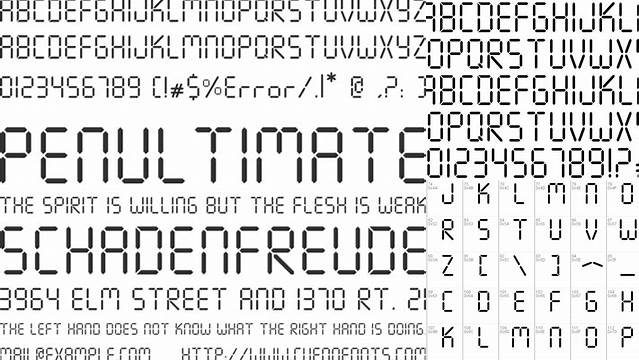
Download Free 7 Segment Fonts: A Comprehensive Guide
Hey guys! Are you on the hunt for that perfect 7 segment font to give your project a unique, digital display vibe? You've landed in the right spot! In this comprehensive guide, we're going to dive deep into the world of 7 segment fonts, where to find them for free, how to use them, and even some tips on picking the best one for your needs. So, let’s get started and explore this fascinating font style!
What is a 7 Segment Font?
First things first, let's break down what exactly a 7 segment font is. Imagine those classic digital displays you see on calculators, digital clocks, and old-school electronic devices. They're made up of seven individual segments that light up in different combinations to form numbers and some letters. That’s the essence of a 7 segment font!
The beauty of this font lies in its simplicity and legibility. Each digit is constructed from a maximum of seven lines, making it incredibly efficient for displaying information on devices with limited display capabilities. This retro aesthetic has made a huge comeback in recent years, and designers are using 7 segment fonts to evoke a sense of nostalgia, technology, and precision. Think of it as the pixel art of typography! Its simplicity makes it ideal for projects where clarity and a tech-inspired look are key. This font is not just a typeface; it's a design element that brings a touch of retro-futurism to any project. Whether you’re working on a sleek user interface or a retro-themed poster, a 7 segment font can add that perfect touch of digital nostalgia.
Why Use a 7 Segment Font?
So, why should you consider using a 7 segment font in your design projects? There are several compelling reasons!
1. Retro Aesthetic
As we touched on earlier, 7 segment fonts have a distinct retro vibe. They instantly transport viewers back to the era of early digital technology, making them perfect for projects that aim to evoke nostalgia or a vintage feel. Using a 7 segment font can be a fantastic way to add a touch of retro-futurism to your work. It's like giving a nod to the past while still maintaining a modern edge. Imagine using it for a poster promoting a retro gaming event, or in the user interface of an app that wants to capture that classic tech feel.
2. Clarity and Legibility
Despite their minimalist design, 7 segment fonts are incredibly clear and easy to read. This makes them ideal for applications where information needs to be conveyed quickly and efficiently. Whether it's displaying the time on a digital clock or showing scores on a scoreboard, the clear, geometric shapes of 7 segment fonts ensure that the information is instantly accessible. This legibility is crucial in environments where information overload can be a problem. Think about the clarity of a 7 segment font on a control panel or in a data-heavy interface; it cuts through the noise and delivers the message directly.
3. Tech and Industrial Look
These fonts have a natural association with technology and industrial applications. They're commonly used in displays for machinery, electronic devices, and control panels. Incorporating a 7 segment font into your design can instantly give it a tech-savvy and professional appearance. This is particularly useful in industries like engineering, manufacturing, and technology. A 7 segment font in a company logo, for example, can communicate a sense of precision and innovation. Similarly, using it in a product manual or technical document can reinforce the technological nature of the content.
4. Unique Design Element
In a world saturated with traditional fonts, using a 7 segment font can make your project stand out. It’s a unique design element that can add character and visual interest to your work. It’s an opportunity to break away from the norm and create something truly memorable. When used creatively, a 7 segment font can become a signature element of your brand or project. Think about how a unique font choice can elevate a design, making it more noticeable and engaging. This uniqueness can be especially effective in marketing materials, where standing out from the competition is key.
Where to Find 7 Segment Fonts for Free
Okay, so you’re convinced that a 7 segment font is the way to go. Now, where can you find these gems without breaking the bank? Luckily, the internet is brimming with resources for free fonts. Here are some of the best places to look:
1. Font Squirrel
Font Squirrel is a fantastic resource for high-quality, free fonts that are licensed for commercial use. They have a great selection of 7 segment fonts, and their easy-to-navigate website makes finding the perfect font a breeze. Font Squirrel is a go-to for designers who need reliable, free options. The site is well-organized, allowing you to filter fonts by category, style, and more. Plus, you can be confident that the fonts you download are safe to use in both personal and commercial projects. Their collection is constantly updated, so it’s worth checking back regularly to see what’s new. The clear licensing information provided by Font Squirrel is also a huge benefit, ensuring you’re using fonts in accordance with their terms.
2. DaFont
DaFont is another popular website with a massive collection of free fonts, including numerous 7 segment options. While many fonts on DaFont are free for personal use, it’s important to check the licensing agreement before using them in commercial projects. DaFont’s vast library makes it a great place to discover unique and quirky fonts. The user interface is straightforward, making it easy to browse and download fonts. However, always double-check the license information provided by the font creator, as terms can vary. DaFont is a treasure trove for creative fonts, and with a little diligence, you can find some real gems for your projects. The ability to preview fonts by entering custom text is also a helpful feature, allowing you to see how the font will look in your designs.
3. Google Fonts
Google Fonts is a powerhouse of free, open-source fonts. While their selection of 7 segment fonts might not be as extensive as some other sites, the fonts they do offer are top-notch and ready for use in any project, commercial or personal. Google Fonts is known for its high-quality typography and seamless integration with web projects. The fonts are optimized for web use, ensuring they load quickly and display correctly across different browsers and devices. This is a huge advantage for web designers. The ease of embedding Google Fonts into websites and apps makes it a popular choice. Plus, the open-source nature of the fonts means you have the freedom to use and modify them as needed.
4. 1001 Fonts
1001 Fonts boasts a wide array of fonts, including a solid selection of 7 segment styles. Like DaFont, it’s crucial to verify the licensing terms for each font before using it commercially. 1001 Fonts offers a diverse collection that caters to a wide range of design needs. The site is user-friendly, with clear categories and search options. The variety of 7 segment fonts available here makes it a worthwhile stop in your search. Just remember to pay attention to the licensing details to ensure you’re using the fonts appropriately. The ability to filter fonts by different criteria, such as style and weight, can help you narrow down your options and find the perfect fit for your project.
5. Creative Market (Free Goods)
Creative Market isn’t exclusively a free font resource, but they offer a selection of free goods every week, which sometimes includes 7 segment fonts. It’s worth checking their free offerings regularly to snag some premium fonts without spending a dime. Creative Market is known for its high-quality design assets, and their free goods section is a fantastic way to access premium resources. The selection changes frequently, so it’s always a good idea to check back often. You might discover some hidden gems and add some valuable fonts to your collection. This is a great way to expand your font library with professional-grade resources at no cost. Plus, it gives you a taste of the quality and variety available on Creative Market, which can be helpful if you’re ever in the market for paid design assets.
How to Choose the Right 7 Segment Font
With so many options out there, how do you choose the right 7 segment font for your project? Here are some factors to consider:
1. Legibility
The primary purpose of a 7 segment font is to display information clearly. Ensure the font you choose is easily readable, especially at the size you plan to use it. The clarity of the font should be your top priority. Look for fonts with well-defined segments and adequate spacing between digits. This is particularly important in applications where quick and accurate information reading is essential. For instance, if you're designing a digital clock display, the font must be legible at a glance. Test the font in various sizes and contexts to make sure it remains clear and readable. A font that looks good in a large headline might not be as effective in a smaller, more detailed display.
2. Style and Aesthetic
Consider the overall style and aesthetic of your project. Do you want a font that looks strictly technical, or something with a bit more flair? There are 7 segment fonts that range from minimalist and utilitarian to more stylized and decorative. The font should complement the overall design and convey the intended message. Think about the mood you want to create. A sleek, modern font might be perfect for a high-tech interface, while a more rounded, retro-style font could be ideal for a vintage-themed project. Consider the other design elements in your project and choose a font that harmonizes with them. The right font can enhance the visual impact of your design and reinforce the intended theme.
3. Completeness of Character Set
Most 7 segment fonts are designed primarily for numerals, but some include a limited set of letters and symbols. Ensure the font you choose includes all the characters you need for your project. If you need to display text as well as numbers, check the font’s character set carefully. Some fonts might only include basic letters, while others offer a more comprehensive set of characters. This is especially important if you're designing a display that needs to show both numerical and textual information. A complete character set ensures that you can convey your message accurately and effectively. It also prevents the need to mix and match fonts, which can disrupt the visual consistency of your design.
4. Licensing
As we’ve mentioned, licensing is crucial. Always check the licensing terms of a font before using it, especially in commercial projects. Make sure you have the rights to use the font for your intended purpose. Understanding the font’s license is essential to avoid legal issues. Some fonts are free for personal use only, while others are free for both personal and commercial use. If you’re unsure about the licensing terms, it’s always best to err on the side of caution and contact the font creator for clarification. Using a font without the appropriate license can lead to legal problems, so it’s worth taking the time to ensure you’re complying with the terms of use.
5. Versatility
Think about the versatility of the font. Can it be used in different sizes and contexts without losing its legibility or aesthetic appeal? A versatile font will serve you well across a range of projects. Consider how the font will perform in different applications. A font that looks great in a large headline might not be as effective in smaller text. Test the font in various sizes and contexts to ensure it remains clear and readable. A versatile font is a valuable asset in your design toolkit, as it can be used in multiple projects and applications. This can save you time and effort in the long run, as you won’t need to search for a new font for every project.
How to Install and Use 7 Segment Fonts
Once you’ve downloaded your 7 segment font, you’ll need to install it on your computer. The process is pretty straightforward, but here’s a quick guide:
Installing on Windows
- Unzip the font file if it’s in a ZIP archive.
- Right-click on the font file (.ttf or .otf) and select “Install.”
- Alternatively, you can copy the font file to the “Fonts” folder in your Windows directory (usually C:\Windows\Fonts).
Installing on macOS
- Unzip the font file if it’s in a ZIP archive.
- Double-click on the font file (.ttf or .otf), and Font Book will open.
- Click “Install Font” at the bottom of the window.
Using the Font
Once installed, the font should be available in any application that uses fonts, such as word processors, graphic design software, and web design tools. Simply select the font from the font menu in your application of choice, and you’re ready to go!
Tips for Using 7 Segment Fonts Effectively
To make the most of your 7 segment font, here are a few tips to keep in mind:
1. Use Sparingly
While 7 segment fonts are cool, they’re best used sparingly. Overusing them can dilute their impact and make your design look cluttered. Use them strategically to highlight key information or create a specific aesthetic. Think of them as a design accent rather than the primary font for your entire project. A little goes a long way in creating a memorable and effective design.
2. Pair with Complementary Fonts
When using a 7 segment font, pair it with a more traditional font for body text or other elements. This creates a nice contrast and prevents the design from becoming too overwhelming. A clean sans-serif font often works well as a complement. This pairing helps to balance the unique, digital look of the 7 segment font with the readability of a more conventional typeface. The contrast can draw attention to the 7 segment font while ensuring the rest of your text remains clear and easy to read.
3. Consider the Color Palette
The color you use for your 7 segment font can significantly impact its appearance. Bright colors like red, green, or blue often work well, as they mimic the look of actual digital displays. Experiment with different color combinations to find what works best for your design. The color should not only complement the font but also align with the overall theme and mood of your project. A well-chosen color palette can enhance the retro-futuristic feel of the 7 segment font and make your design stand out.
4. Pay Attention to Spacing
Proper spacing is crucial for legibility, especially with 7 segment fonts. Make sure there’s enough space between characters and lines to ensure the text is easy to read. Adjust the kerning and leading as needed to optimize the spacing. Insufficient spacing can make the text look cramped and difficult to decipher, while excessive spacing can create a disjointed appearance. Paying attention to these details can greatly improve the overall readability and visual appeal of your design.
There you have it, guys! Everything you need to know about 7 segment fonts and where to find them for free. Whether you’re aiming for a retro vibe, a tech-inspired look, or just something unique, these fonts can add a special touch to your projects. Remember to choose the right font for your needs, respect the licensing terms, and use them creatively. Happy designing!
So go ahead, explore the world of 7 segment fonts and see how they can elevate your design projects. With the tips and resources we’ve shared, you’re well-equipped to find the perfect font and use it effectively. Whether you’re a seasoned designer or just starting out, 7 segment fonts offer a versatile and stylish option for a wide range of applications. Embrace the retro-futuristic aesthetic and let your creativity shine!